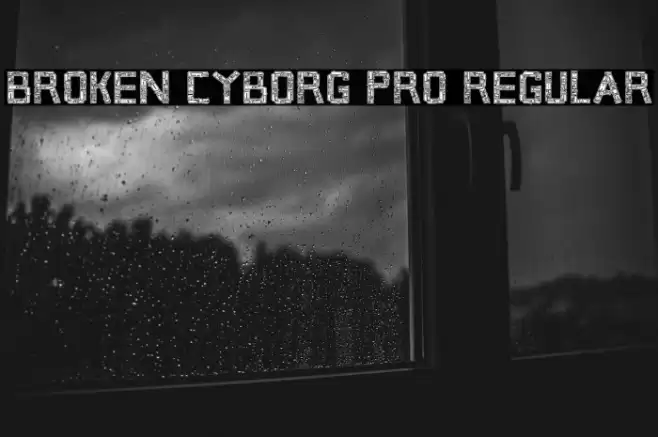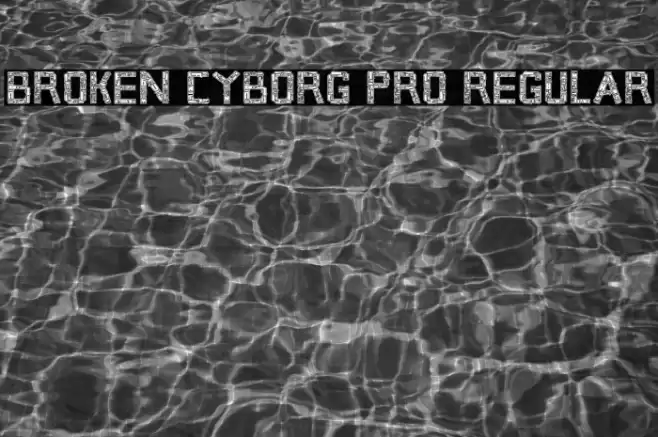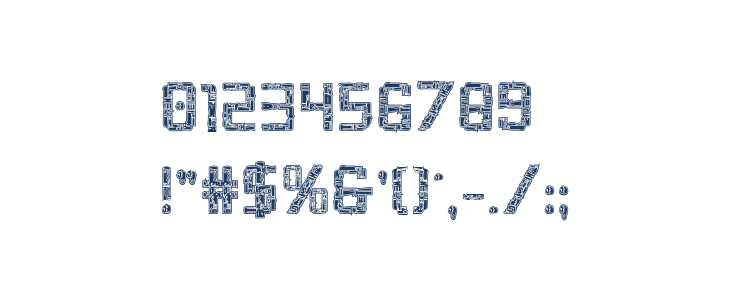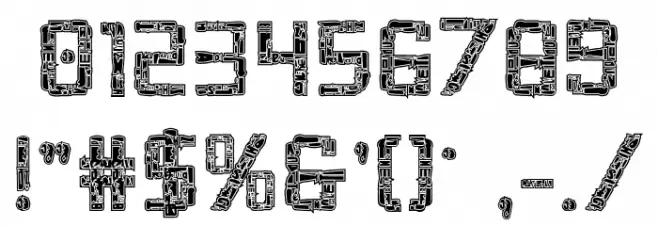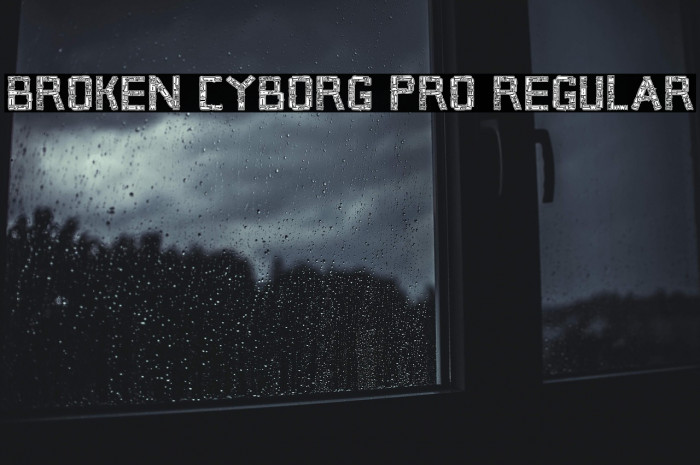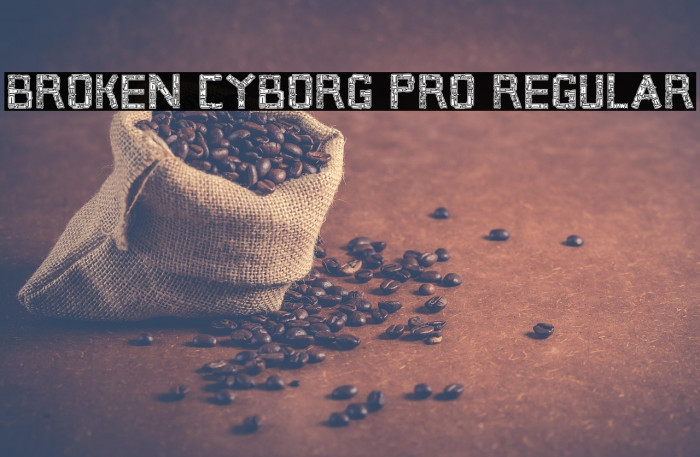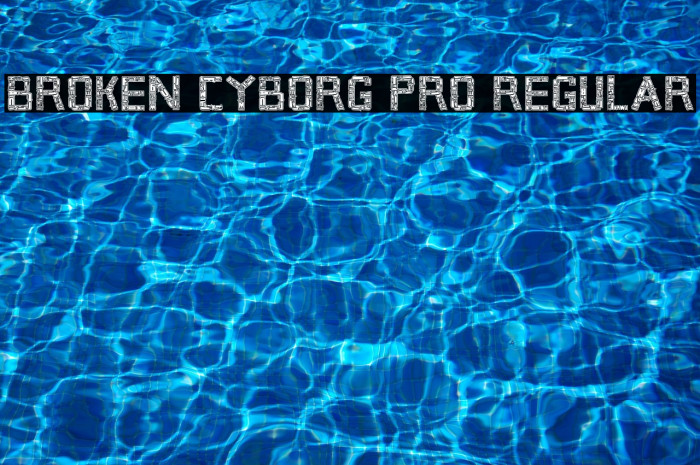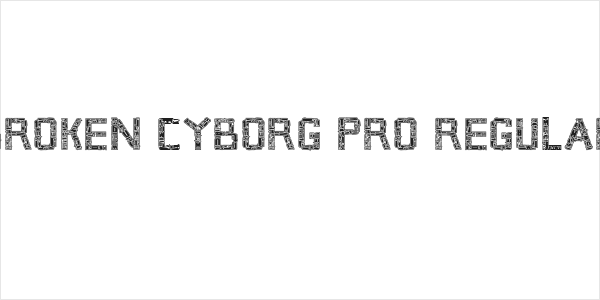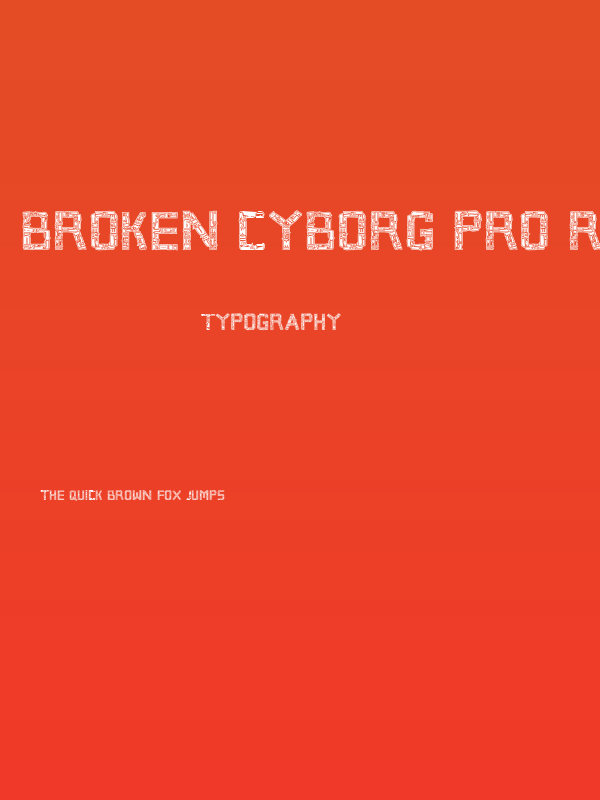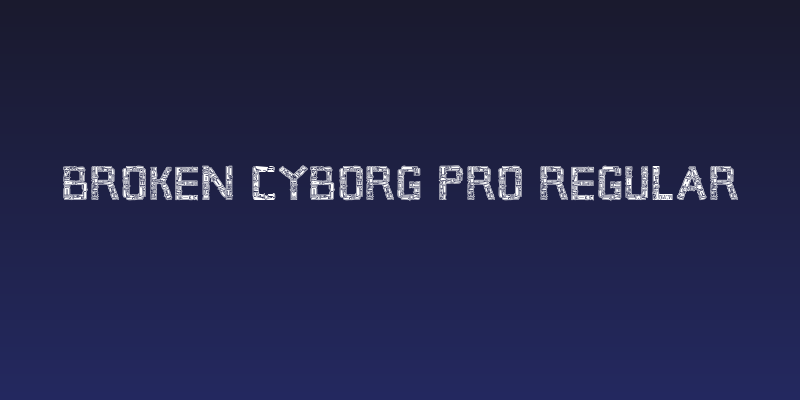
Broken Cyborg Pro Regular Font
Broken Cyborg Pro Regular Description
This font features a futuristic, mechanical design with intricate details that resemble circuit patterns or robotic elements. The characters are bold and blocky, with a distinct industrial feel. Each letter and number is composed of fragmented, angular shapes that create a sense of complexity and depth. The font's unique style is reminiscent of a cybernetic or sci-fi theme, making it ideal for projects that require a high-tech or digital aesthetic. The overall appearance is both striking and unconventional, capturing attention with its elaborate and technical design.
A futuristic, mechanical font with intricate circuit-like details and a bold, industrial style from Uncategorized fonts.
- Overall Style: Futuristic, Industrial